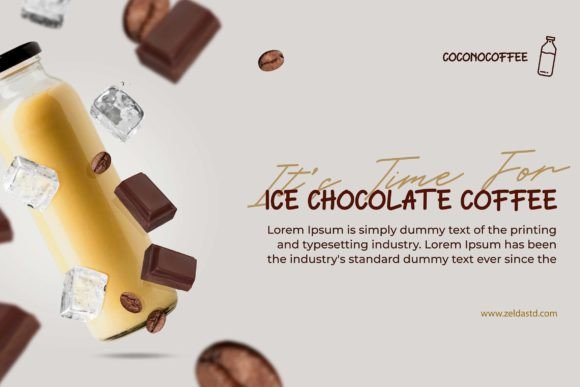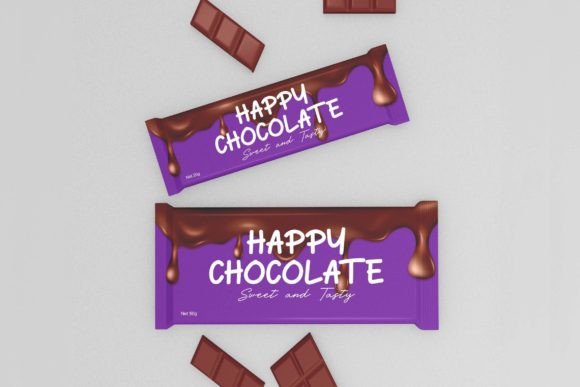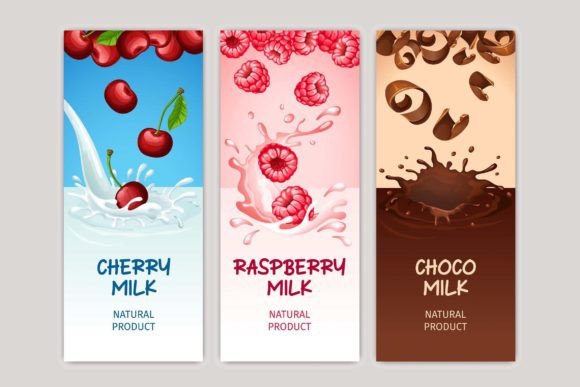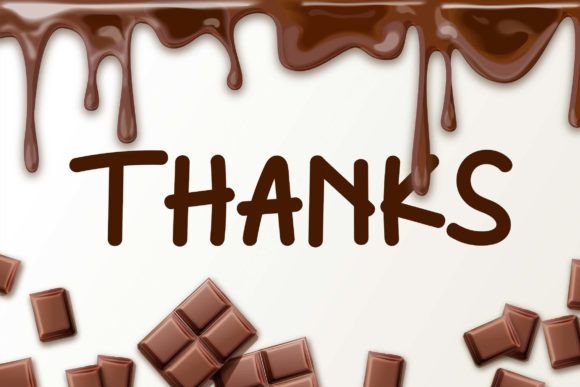
Coklat Font: The Sweetest Addition to Your Design Projects
Are you looking for a typeface that can add a touch of whimsy and playfulness to your design projects? Look no further than Coklat Font! This attractive and sweet typeface is designed to capture the essence of childhood delights, making it perfect for a variety of design applications.
The Charm of Coklat Font
Coklat Font is a charming and whimsical typeface that is sure to evoke a sense of joy and playfulness in anyone who sees it. Its fun and vibrant appearance makes it perfect for designs that require a touch of cheer and personality. Whether you’re working on a candy packaging project, party invitation, or greeting card, Coklat Font is the perfect choice.
Design Features of Coklat Font
Coklat Font features charming, whimsical letters that are designed to capture the essence of childhood delights. Its unique and playful design makes it stand out from other typefaces, and its fun and vibrant appearance adds a touch of cheer to any design project. The font is also highly versatile, making it suitable for a wide range of design applications.
Coklat Font is perfect for designers and crafters who are looking to add a touch of personality and whimsy to their design projects. Whether you’re working on a commercial project or a personal craft project, Coklat Font is the perfect choice. Its fun and playful design makes it ideal for:
• Candy packaging: Add a touch of sweetness to your candy packaging with Coklat Font.
• Party invitations: Create fun and playful party invitations with Coklat Font.
• Greeting cards: Add a touch of personality to your greeting cards with Coklat Font.
• DIY projects: Use Coklat Font to add a touch of whimsy to your DIY projects, such as scrapbooking, card making, and more.
Why Choose Coklat Font?
There are many reasons why Coklat Font is the perfect choice for your design projects. Here are just a few:
• Unique and playful design: Coklat Font features a unique and playful design that is sure to stand out from other typefaces.
• Highly versatile: Coklat Font is highly versatile and can be used for a wide range of design applications.
• Easy to read: Despite its playful design, Coklat Font is easy to read and can be used for both headings and body text.
• Fun and vibrant: Coklat Font adds a touch of fun and vibrancy to any design project.
Tips for Using Coklat Font
Here are a few tips for using Coklat Font in your design projects:
• Use it for headings: Coklat Font is perfect for headings and titles, where its playful design can really shine.
• Pair it with other fonts: Coklat Font can be paired with other fonts to create a unique and interesting design.
• Experiment with colors: Coklat Font looks great in a variety of colors, so don’t be afraid to experiment and find the perfect color for your design.
Coklat Font is a sweet and attractive typeface that is perfect for designers and crafters who are looking to add a touch of whimsy and playfulness to their design projects. Its unique and playful design makes it stand out from other typefaces, and its fun and vibrant appearance adds a touch of cheer to any design project. Whether you’re working on a commercial project or a personal craft project, Coklat Font is the perfect choice.